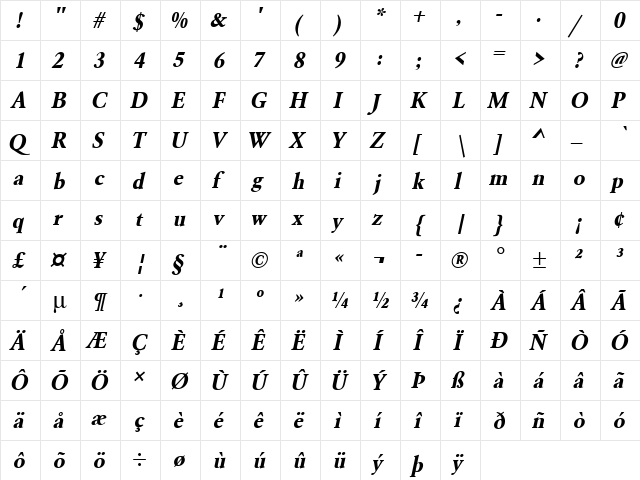
URWGaramondTNar Bold Oblique
URWGaramondTNar offers clean, dependable letterforms without strong stylistic allegiance, making it a practical choice for designers who need flexibility. Its italic angle brings a sense of urgency and motion to the letterforms. The heavy weight commands attention and anchors typographic hierarchies.
Pro Tip: Use URWGaramondTNar for emphasis, pull quotes, and subheadings where its slanted energy can add rhythm to the layout.